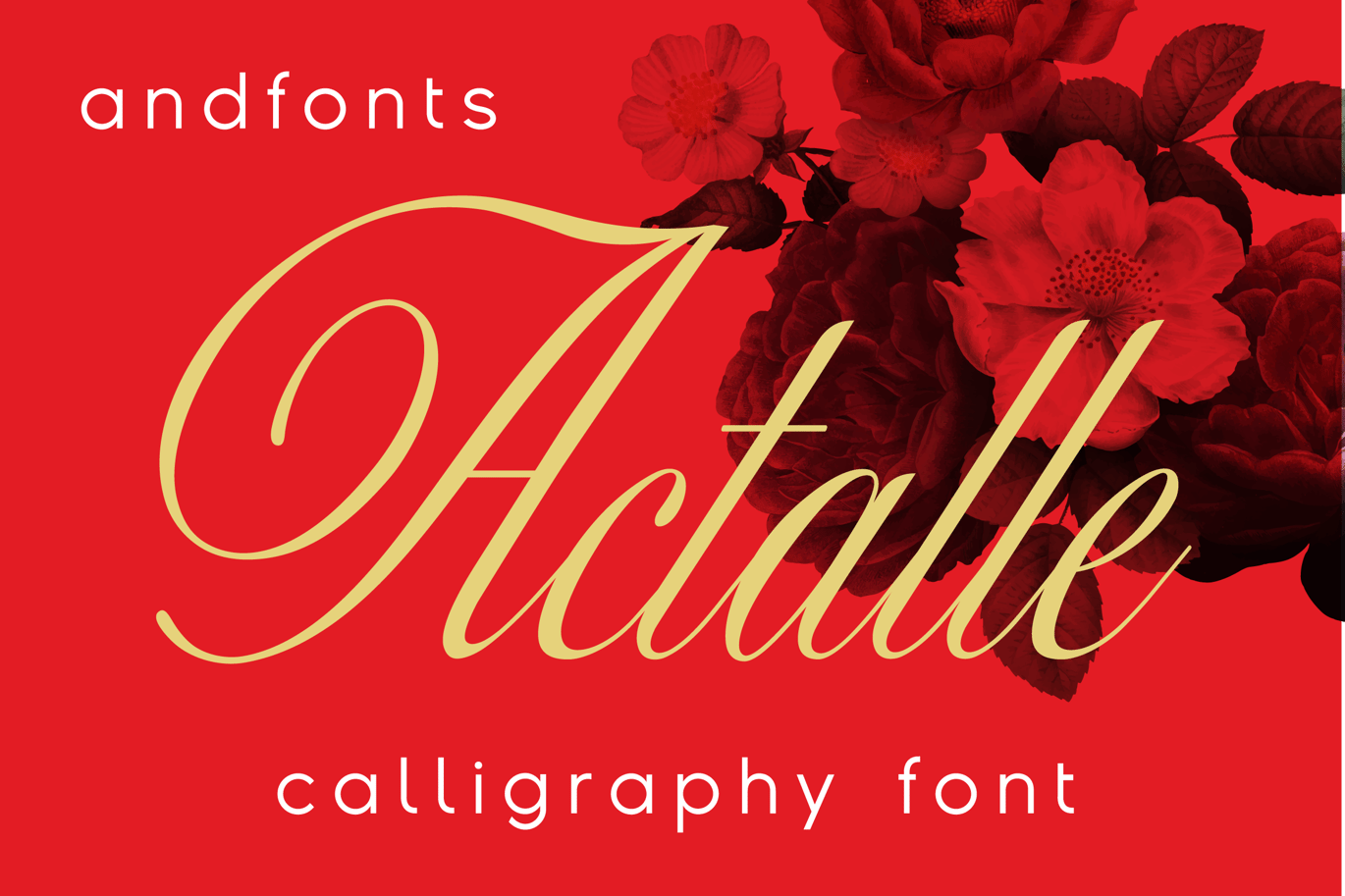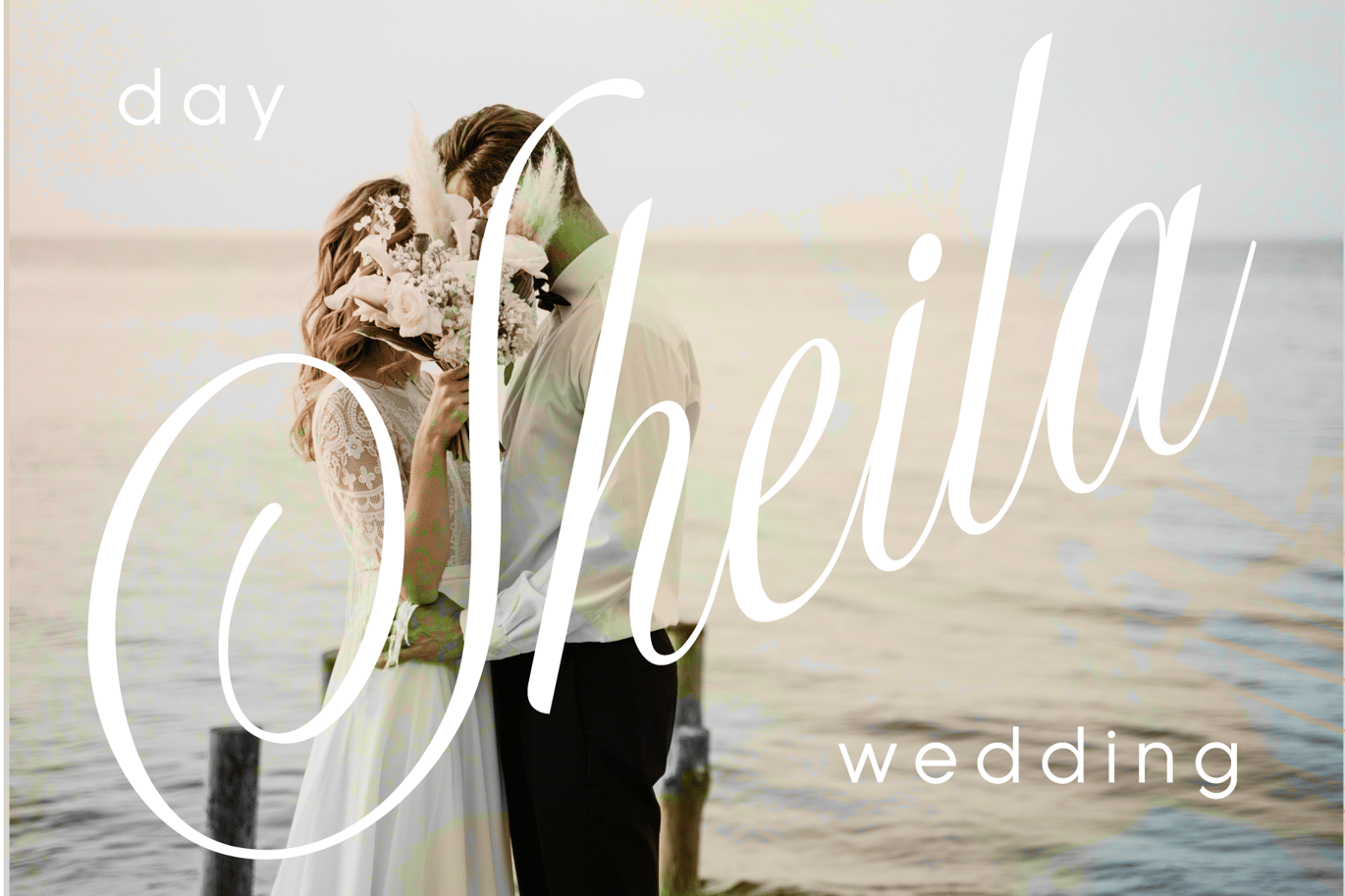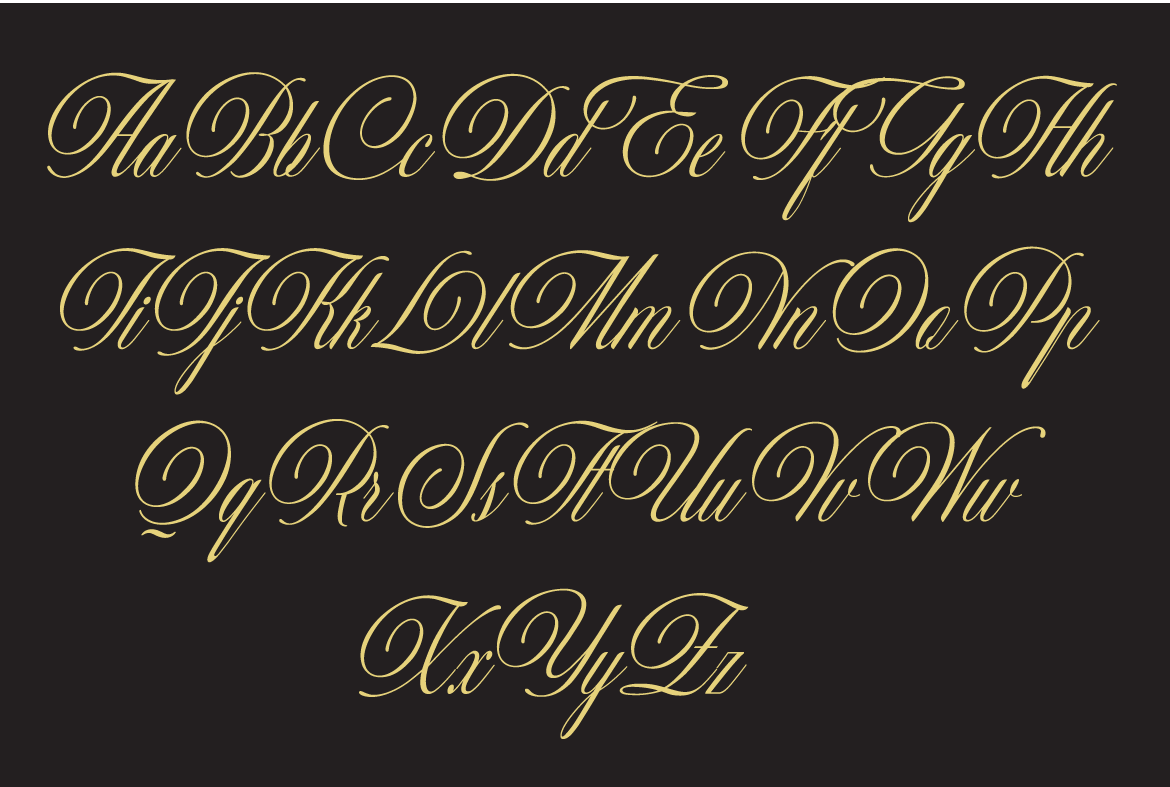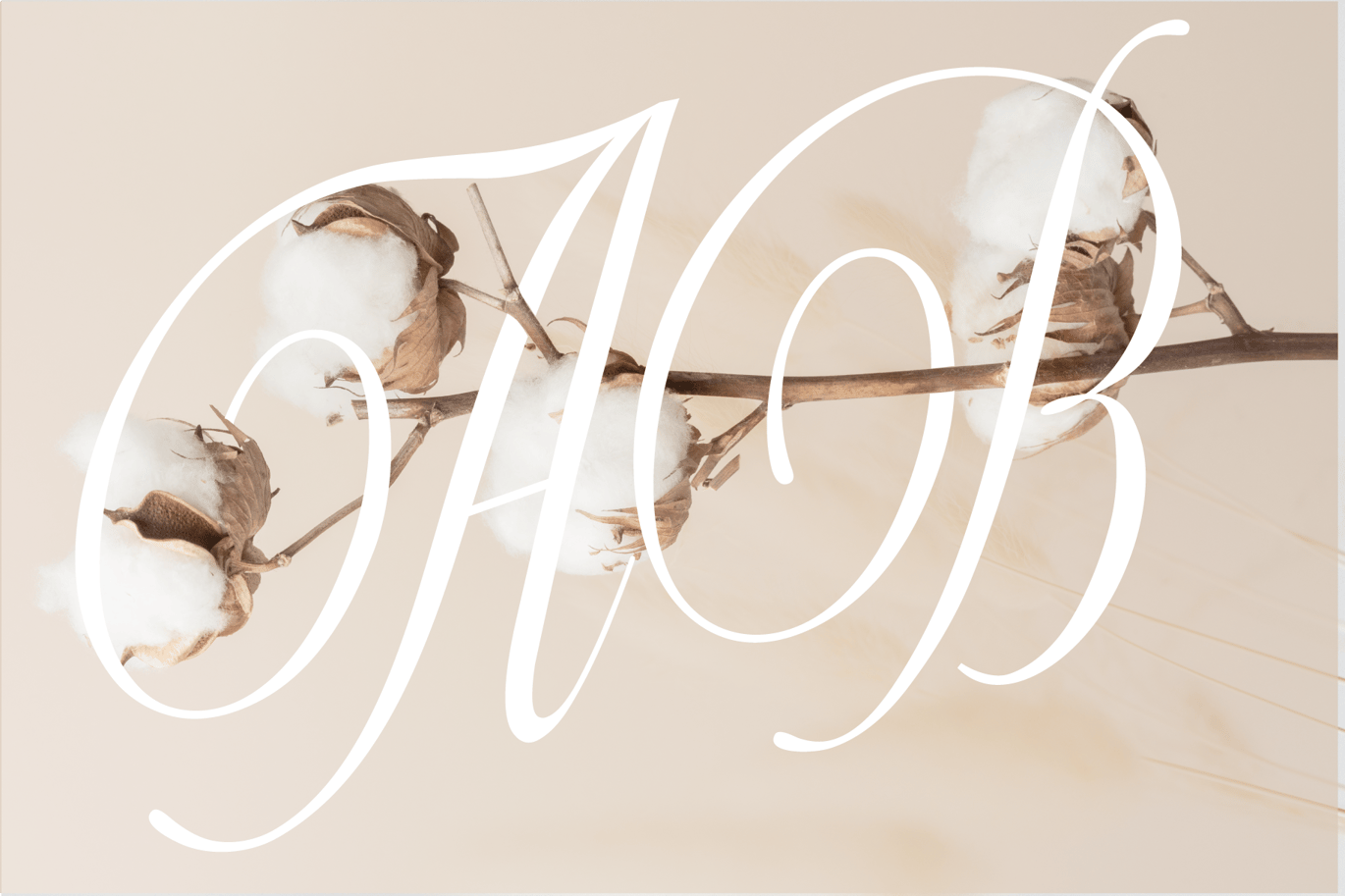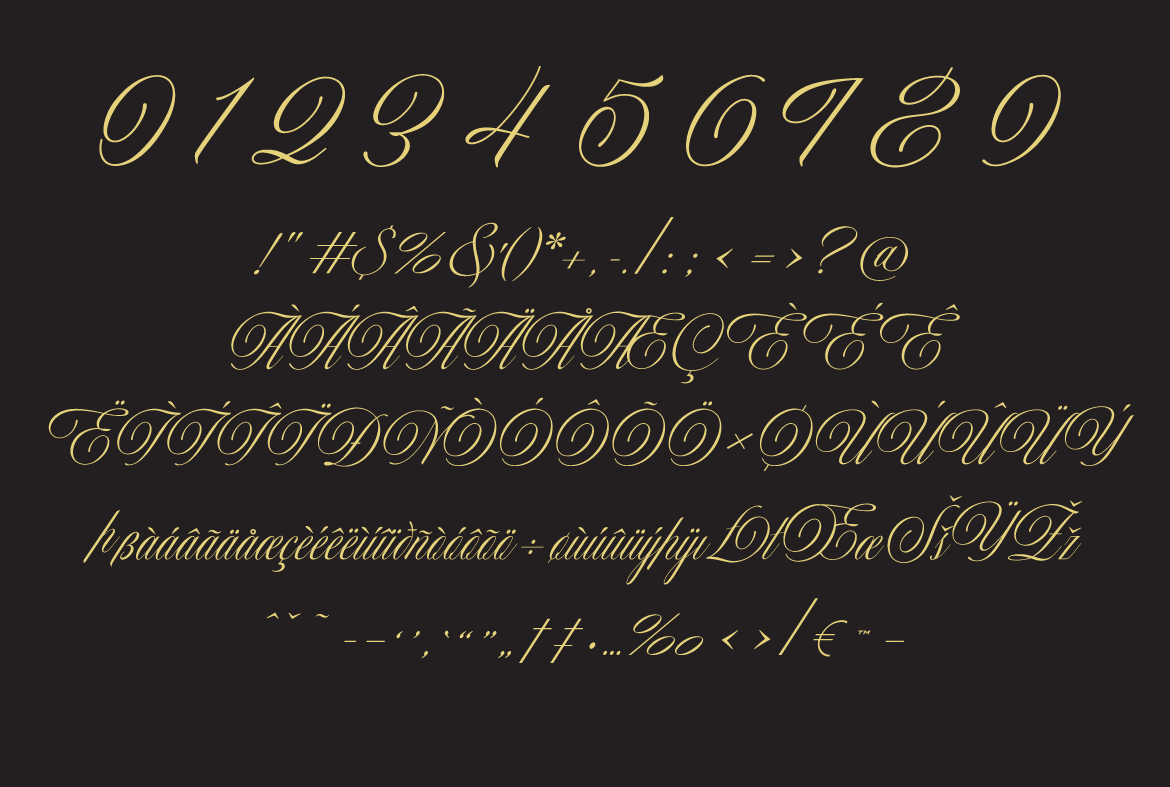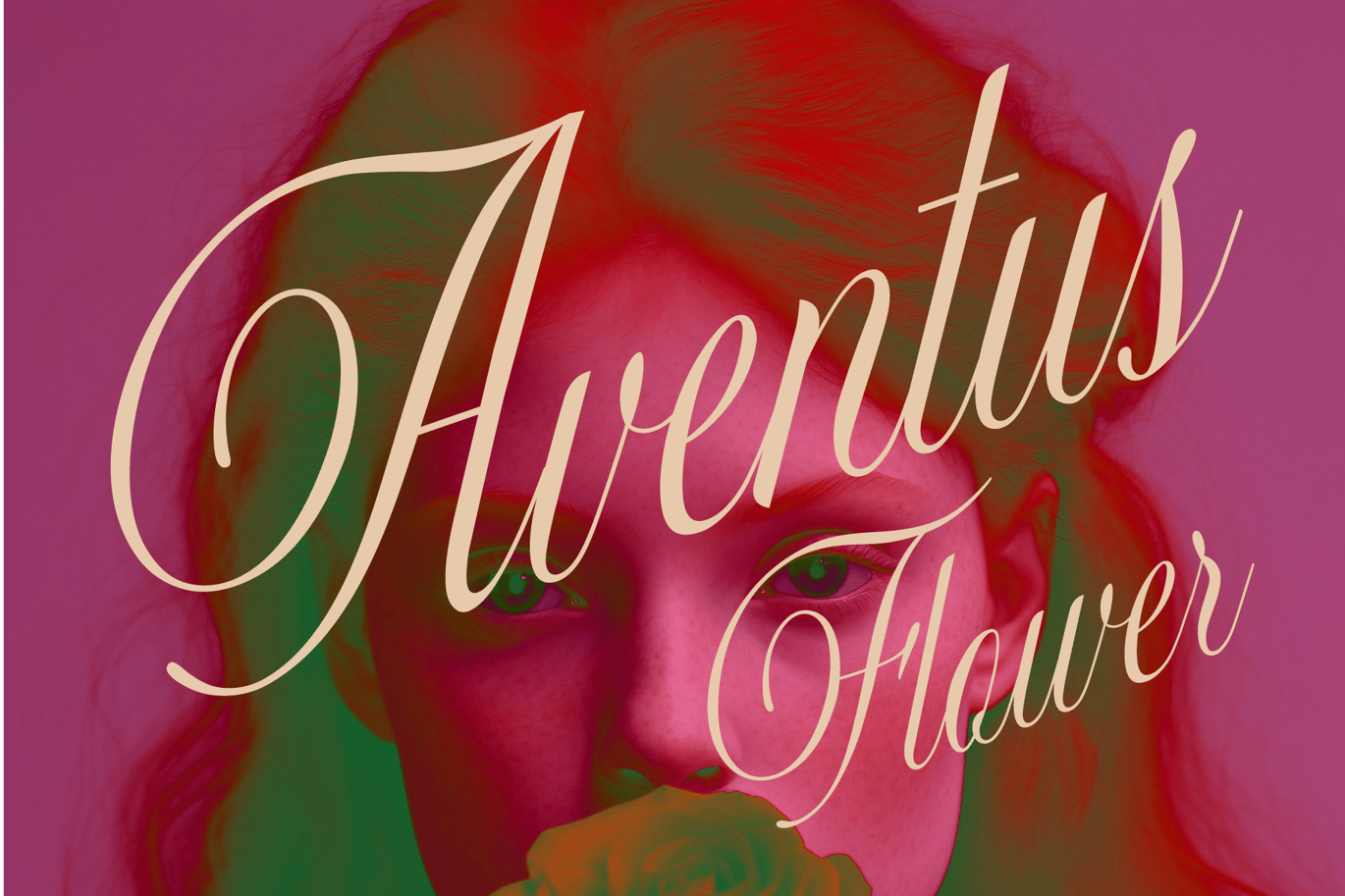
Actalle Calligraphy Font
Meet Actalle, a calligraphy font that effortlessly blends the grace of traditional script with a modern touch. It’s a perfect choice for various design projects. Actalle’s delicate strokes and fluid lines capture the timeless charm of classic calligraphy, adding a touch of sophistication to your work. Add a touch of calligraphic sophistication with Actalle. Transform your text into a work of art.